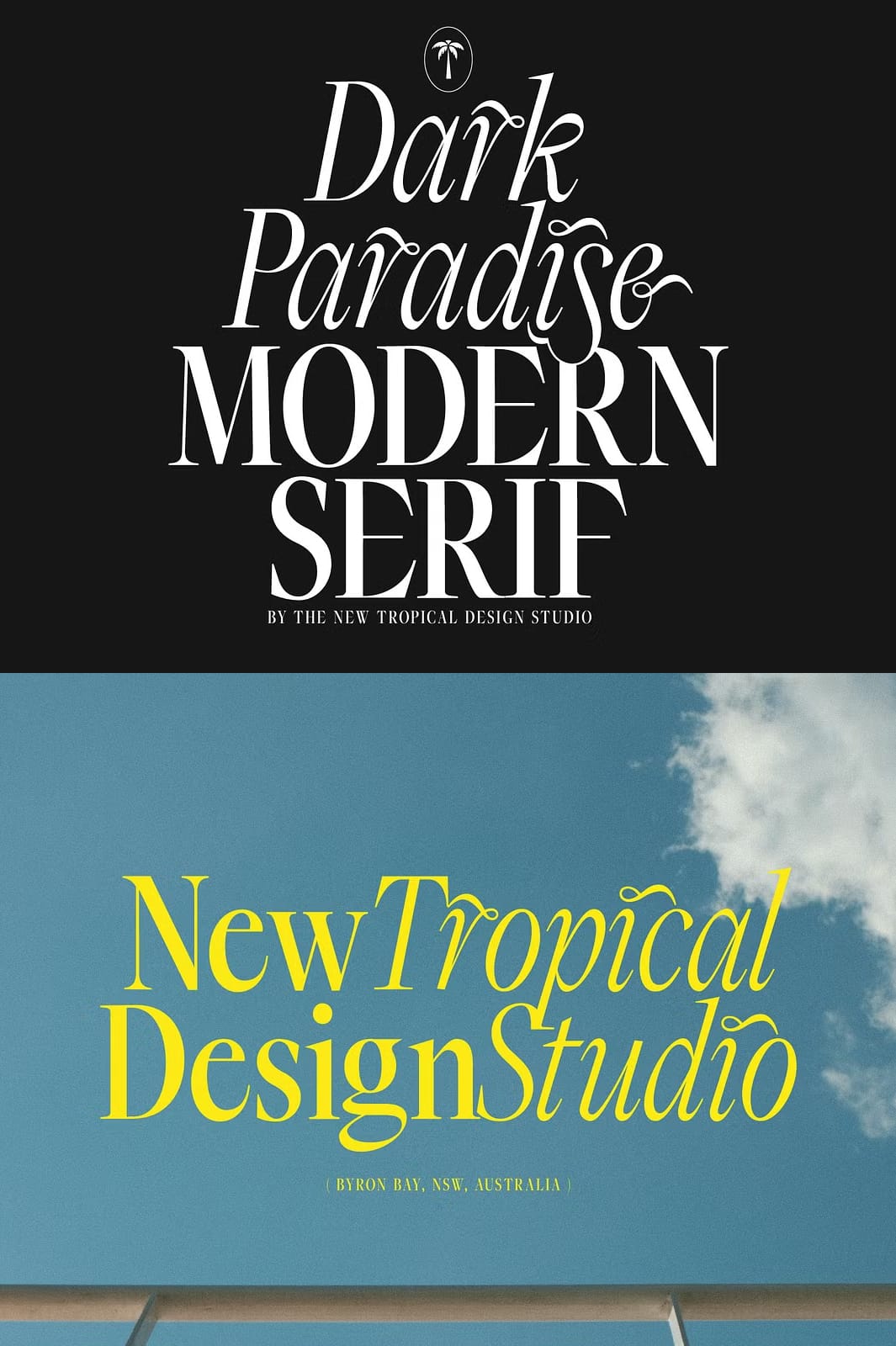
Discover the Unique Contrast of Dark Paradise
Dark Paradise is a modern serif typeface that masterfully blends strength and elegance. Its design features a bold, edgy serif style that contrasts beautifully with an elaborate, ornate italic case. This juxtaposition creates a visually striking and sophisticated typographic experience, perfect for designers seeking to make a powerful statement with their work.
Elegant Ornate Italics with Extensive Alternates
Key Features of the Ornate Italic Case
- Multiple alternate characters for creative flexibility
- Elegant swashes and flourishes to enhance your text
- Designed to complement the strong serif uppercase and lowercase
Complete Character Set and Multilingual Support
Dark Paradise includes a full set of uppercase and lowercase letters, numbers, and punctuation marks, ensuring your text is complete and polished. Additionally, it supports multiple languages, including Polish, through its comprehensive multilingual character set. This makes Dark Paradise a versatile choice for international projects and diverse audiences.
Powerful Visual Impact
The bold serif combined with the ornate italic creates a dynamic contrast that commands attention. This makes Dark Paradise ideal for branding, editorial design, packaging, and any project where you want your typography to stand out with confidence and style.
Creative Flexibility with Alternates
The extensive alternates in the italic case provide you with the tools to customize your typography, adding personality and uniqueness to your designs. This flexibility is perfect for designers who want to push creative boundaries and deliver memorable visual experiences.
- Font Styles: Regular serif, Ornate italic with alternates
- Character Set: Uppercase, lowercase, numbers, punctuation
- Multilingual Support: Includes Polish and other Latin-based languages